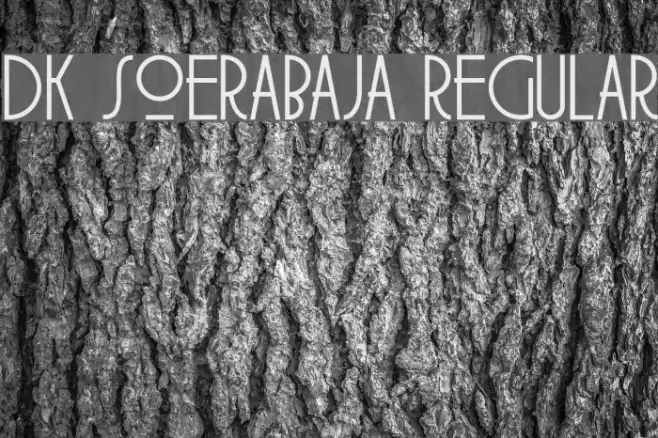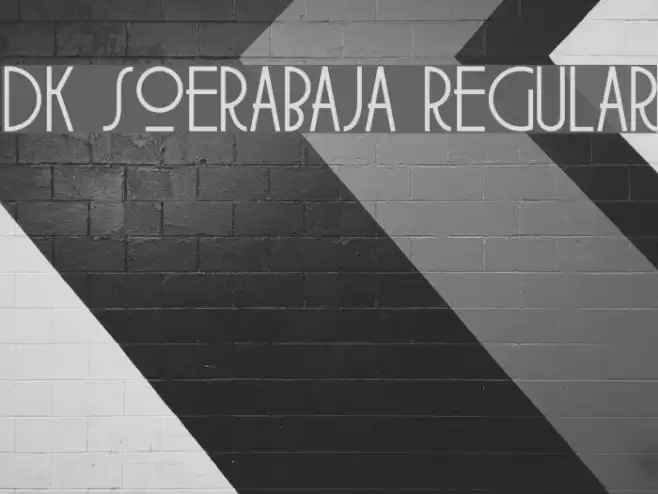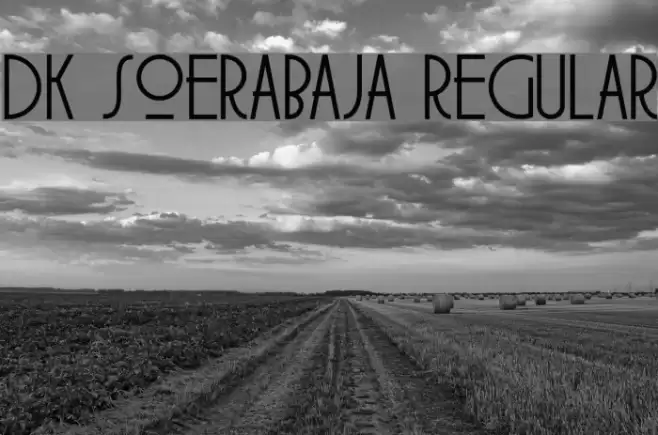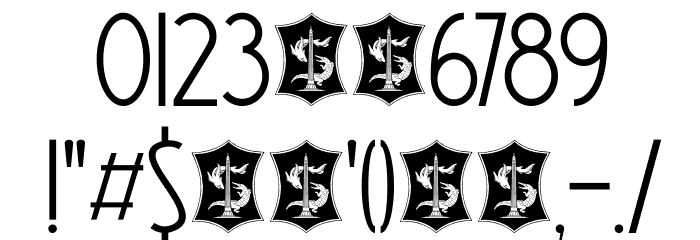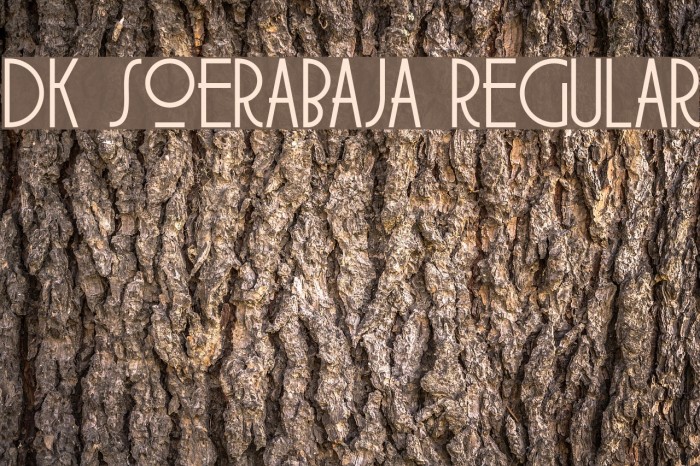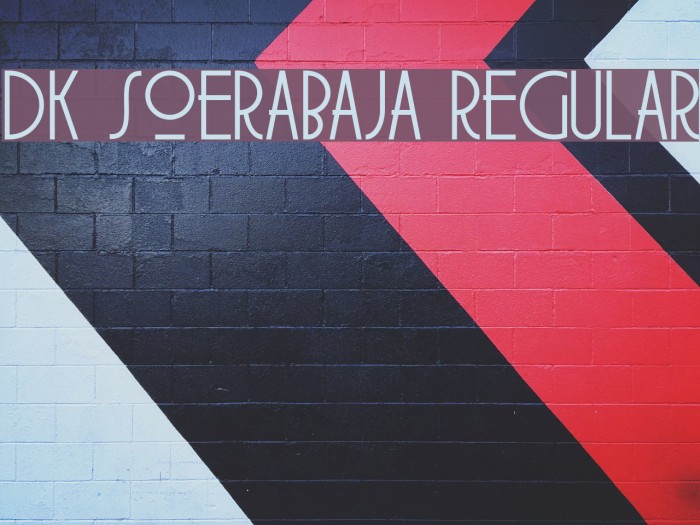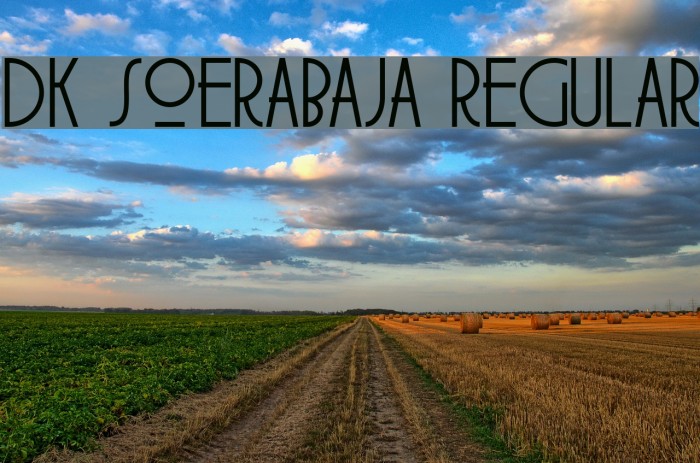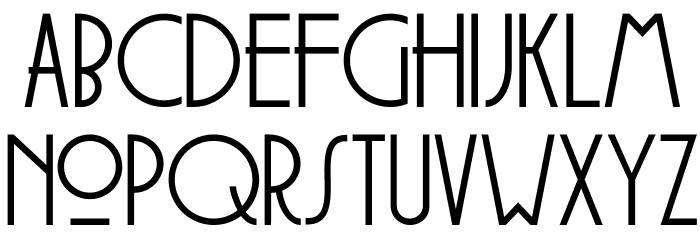
DK Soerabaja Regular Font
DK Soerabaja Regular Description
This font features a distinct Art Deco influence, characterized by its geometric shapes and clean lines. The uppercase letters are tall and narrow, with a unique angular design that gives them a modern yet vintage feel. The lowercase letters maintain a consistent style, complementing the uppercase with their sleek and elegant form. The numerals are similarly styled, offering a cohesive look across all characters. Special characters are included, adding versatility to the font. Overall, this typeface exudes a sense of sophistication and elegance, making it suitable for a variety of design projects.
A geometric, Art Deco-inspired font with sleek, angular lines from Retro fonts.
- Proposed Projects: Ideal for branding, posters, invitations, and editorial design where a touch of elegance and vintage flair is desired.
- Overall Style: Vintage